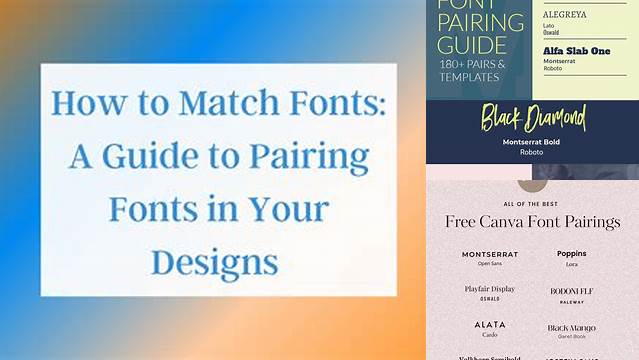
Find Your Font: Legitimate & Creative Font Resources
Unveiling the World of Fonts: A Guide to Finding the Perfect Match
Finding the right font can feel like a treasure hunt, right guys? It’s a crucial part of any design project, whether you're crafting a website, designing a logo, or even just sprucing up a presentation. The font you choose speaks volumes, conveying the tone and personality of your message. But where do you even begin? And, more importantly, how do you navigate the vast sea of fonts without falling into the trap of, well, let's just say, less-than-legitimate downloads? Let's dive into the world of fonts, exploring how to identify them, find great options, and do it all the right way. We will cover all aspects related to find my font crack free download, so you can have the best content.
The Importance of Font Selection
Choosing the perfect font is far more than just picking something that looks pretty. It's about understanding how fonts communicate. Each typeface carries its own unique vibe. Serif fonts, with their little decorative strokes, often evoke a sense of tradition, trustworthiness, and formality. Think of the classic look of Times New Roman or the elegance of Garamond – perfect for books, newspapers, or anything that needs to convey authority. Sans-serif fonts, on the other hand (those without the strokes), tend to feel modern, clean, and approachable. They're the go-to choice for websites, mobile apps, and anything aiming for a contemporary feel. Think of the sleek lines of Arial or the friendly curves of Helvetica.
Then, there are the display fonts, which are designed for headlines, titles, and short bursts of text. These can be anything from bold and playful to artistic and experimental. Display fonts are all about making a statement, grabbing attention, and adding a unique flair. The right font can instantly elevate your design, making it more professional, engaging, and memorable. It can also help you avoid potential copyright issues and legal problems. That's why understanding where to find fonts, how to use them, and how to be mindful of licensing is so important.
Identifying Fonts: Tools and Techniques
Okay, so you've seen a font you love but have no idea what it is? Don't worry, it happens to the best of us! Luckily, there are some fantastic tools that can help you identify any font. One of the most popular and reliable is WhatTheFont, a service by MyFonts. All you have to do is upload an image of the font, and it will analyze the letters and suggest matching fonts from its extensive database. It's pretty amazing, really. Another great option is the Font Identifier tool by Fontspring. Both websites do essentially the same thing, but offer you different results, so you may try both.
Another helpful tool is the browser extension called Font Finder. If you see a font on a website that you like, you can click on the extension and it will identify the font. This is a quick and easy way to discover fonts you see online. These tools use image recognition technology to compare the font's shape with their databases, quickly identifying the font. But sometimes you may not have an image, you may be working with a PDF or some other document. In these cases, Adobe Photoshop, or Illustrator can help to identify the font. In these applications, you can often select the text and the software will identify the font. The ability to identify fonts is a superpower for designers, marketers, and anyone else who works with visual content. It lets you replicate the look and feel of designs you admire, and it also helps you understand the nuances of typography and fonts.
Font Licensing: Understanding the Rules
When you’re getting fonts, understanding the licensing is critical. Each font has its own specific license, which determines how you can use it. The most common types of licenses are personal use licenses and commercial use licenses. A personal use license is for non-commercial projects, such as personal websites or personal projects. A commercial license allows you to use the font for any project, including commercial projects like websites, logos, or marketing materials. It's important to carefully review the font’s license before using it to ensure you’re following the terms and conditions.
Some licenses have restrictions on the number of times a font can be used or on the type of project it can be used for. It's important to always read the fine print. For example, you may need to purchase a separate license for embedding a font on a website. Or, you may need to pay extra for use in a logo. The EULA (End-User License Agreement) is a legal document that outlines the terms of use for a font. It specifies what you can and cannot do with the font, so it's always recommended to read it before using a font. By respecting font licensing, you support the designers who create these amazing fonts, and it also avoids any legal problems. If you do not, you could be at risk for lawsuits. No one wants that!
Tips for Font Pairing
Choosing the right font is only the first step. How you pair it with other fonts is also important. Font pairing is an art, so let's delve into some useful tips. First, stick to a maximum of two or three fonts in any single design. Too many fonts can make your design look cluttered and confusing. Then, consider contrast. Choose fonts that contrast each other in terms of style, weight, and size. This helps create visual interest and makes the text easier to read. One great tip is to pair a serif font with a sans-serif font. This is a classic combination that creates a nice balance between traditional and modern elements. Remember to consider the purpose of your design. The font you use will depend on whether you are creating a website, a logo, or a marketing campaign. For example, a playful font may work well for a children’s book, but it may not be suitable for a business website.
Finally, always test your font pairings. Try out different font combinations and see how they look together. Test them in different sizes and weights to make sure they work well in different scenarios. If you have access to it, a font pairing generator is great. They will offer many different font pairings that fit the criteria that you choose. By following these tips, you can create visually appealing designs. This is just an overview, and of course, experimentation is key. So, feel free to try out different pairings and see what works best for your projects!
Avoiding Free Font Pitfalls
While it's tempting to look for “find my font crack free download” options, it’s important to be aware of the risks associated with free fonts. Yes, free fonts are everywhere, but it is vital to make sure that you are getting these from a reliable source. Some free fonts come with malware or viruses, which can damage your computer. Downloading fonts from untrusted sources is also a copyright violation. You're essentially stealing someone's work. Then there is the issue of quality. Free fonts may not be as well-designed as paid fonts, meaning they might have poor kerning, spacing issues, or incomplete character sets. Another thing to remember is the legal risks. Using a font without the proper license can lead to legal problems, including lawsuits.
If you are going to get free fonts, here are a few tips. Stick to reputable sources like Google Fonts, Adobe Fonts (with a Creative Cloud subscription), and other trusted font libraries. Always check the license before downloading a font. Make sure it allows you to use the font for your intended purpose. Then scan downloaded files with an antivirus program before installing them to protect your computer. Finally, be wary of any fonts that seem too good to be true. If a font is being offered for free but looks incredibly professional, it may be a scam. Remember, it’s better to spend a little money on a font than to risk your computer, your legal standing, or your reputation.
Navigating the world of fonts can seem daunting, but with the right knowledge and resources, you can find the perfect fonts for your project. Remember the importance of font selection, learn to identify fonts, and always prioritize legal and ethical sources. Steer clear of “find my font crack free download” options and instead embrace the amazing variety of high-quality fonts from legitimate sources. By following these guidelines, you can create visually appealing designs that communicate your message effectively and avoid any legal issues. Happy designing!